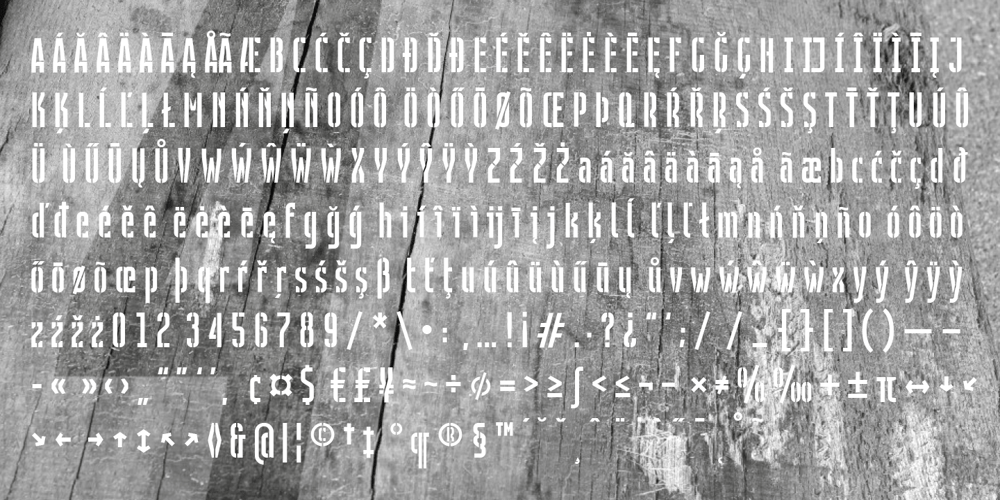
Contentor Font Family was designed by Holger Ziemann and published by erzaehlzeichen. Contentor contains 4 styles and family package options. Contentor is a display type originated in the habour and made for long journeys. Inspired by the industrial lettering on containers, hardcases and boxes, Contentor and Contentor Stencil are a condensed and bold typeface fit for any voyage.